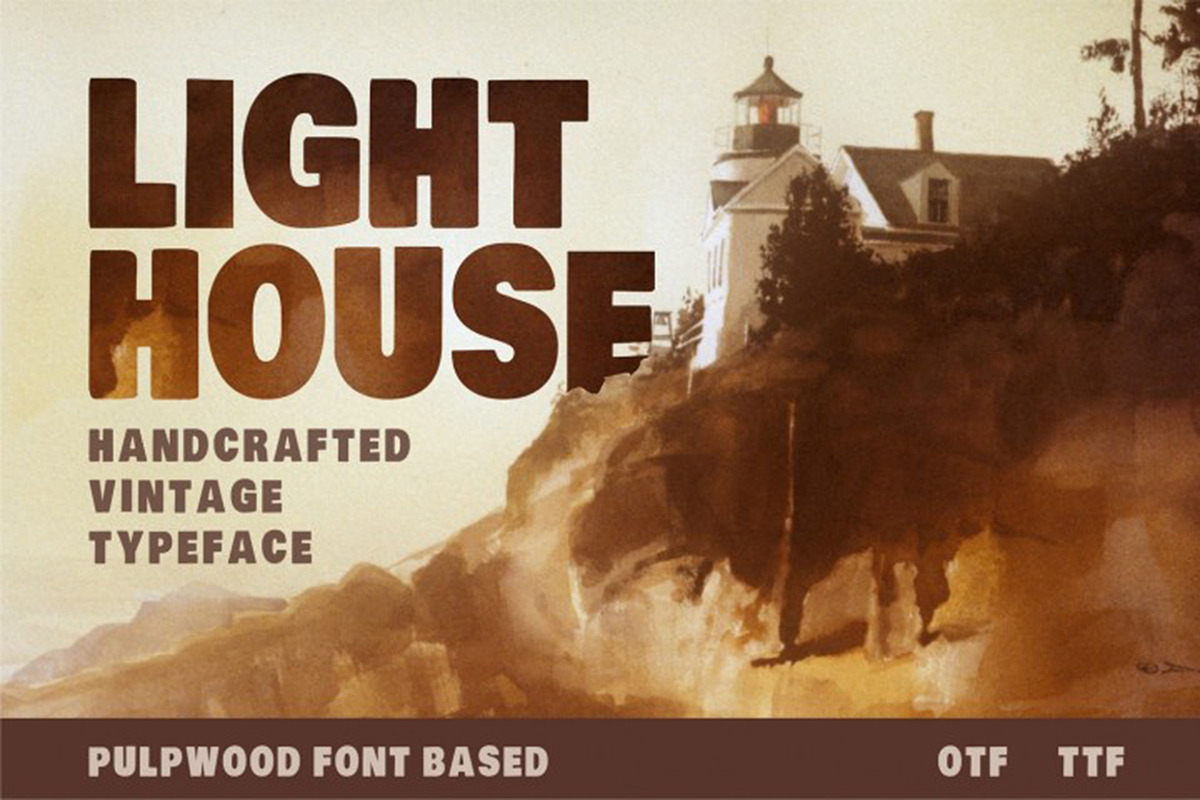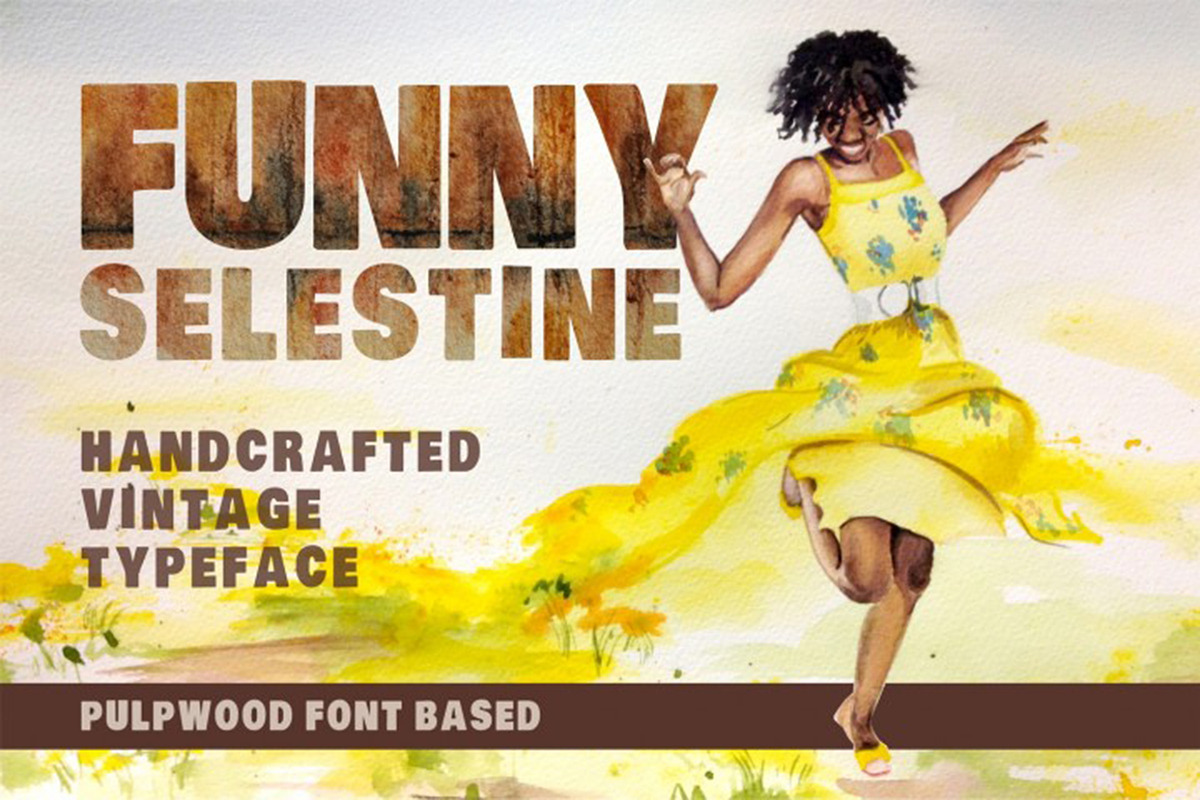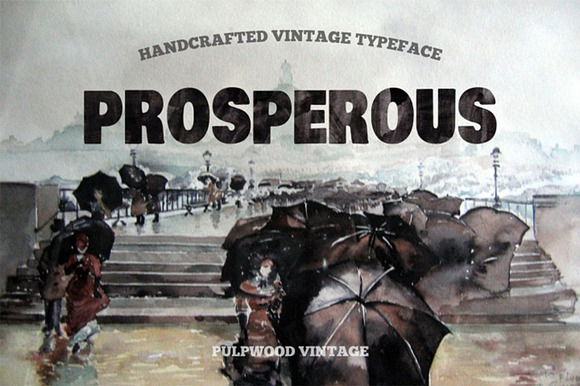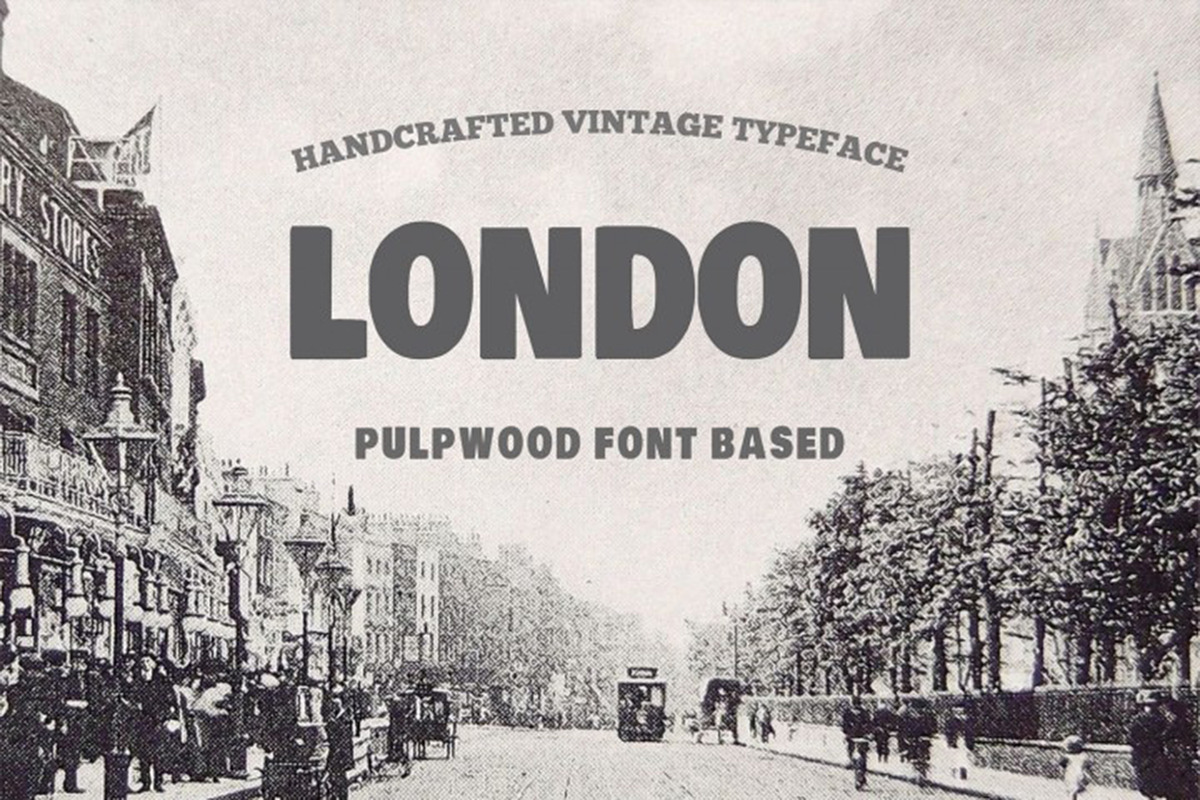
Pulpwood font vintage typeface
Pulpwood is a font you can see on the various bestseller books. It was used not only on book covers also in a movie poster. Futuristic and modern design is visible in strong strongly highlighted lines and shadows of the letters. Use this font in every creative design you can imagine, and your work will become attractive. Constructed by the bold mixture of modern and futuristic alphabet characters without additions and stylized shadows lines this font is ideal for your design works in mostly any subject or theme. Pulpwood meaning is timber suitable for making into pulp. As connection with meaning this font has bold strong characters.
Black filled bold letters
Lowercase letters (uppercase letters small sized)
- Constructed by the bold mixture of modern and futuristic alphabet characters without additions and stylized shadows lines this font is ideal
- As connection with meaning this font has bold strong characters.
- Font consist of Black filled bold letters Uppercase letters Lowercase letters (uppercase letters small sized) Numbers Punctuation Special ch
Why Pulpwood font vintage typeface is worth a look
Pulpwood font vintage typeface by Vintage Font Lab fits naturally into Branding, posters, packaging, typography.